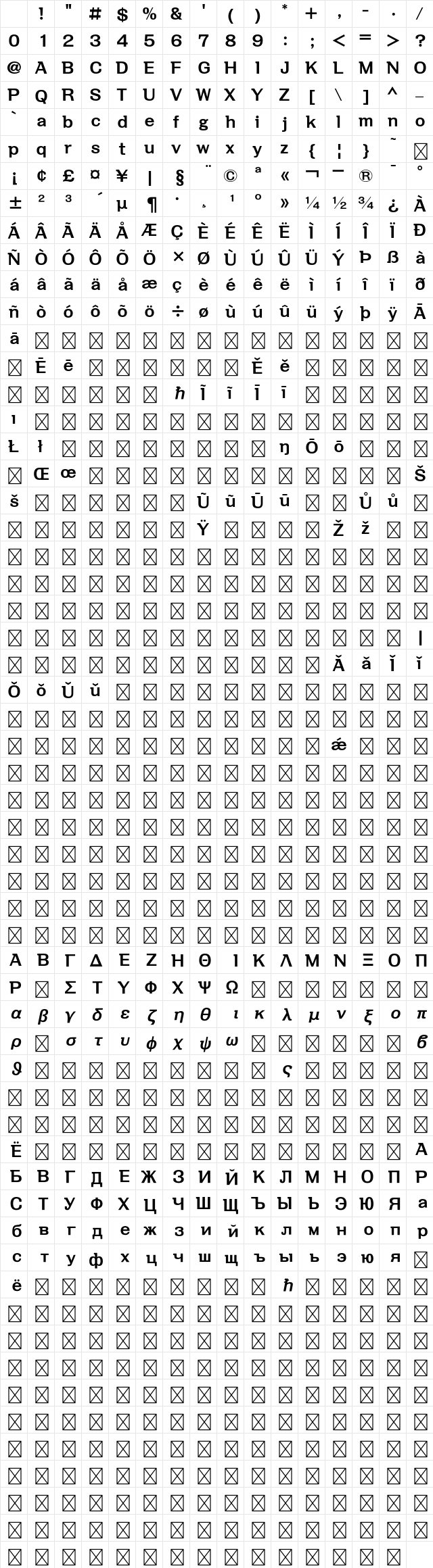
A-OTF Kakumin Pro B
Style: B
Designer: Kazuo Morosawa
Design Context for A-OTF Kakumin Pro
A-OTF Kakumin Pro is a composed and adaptable typeface that performs quietly and consistently across a wide range of design contexts.